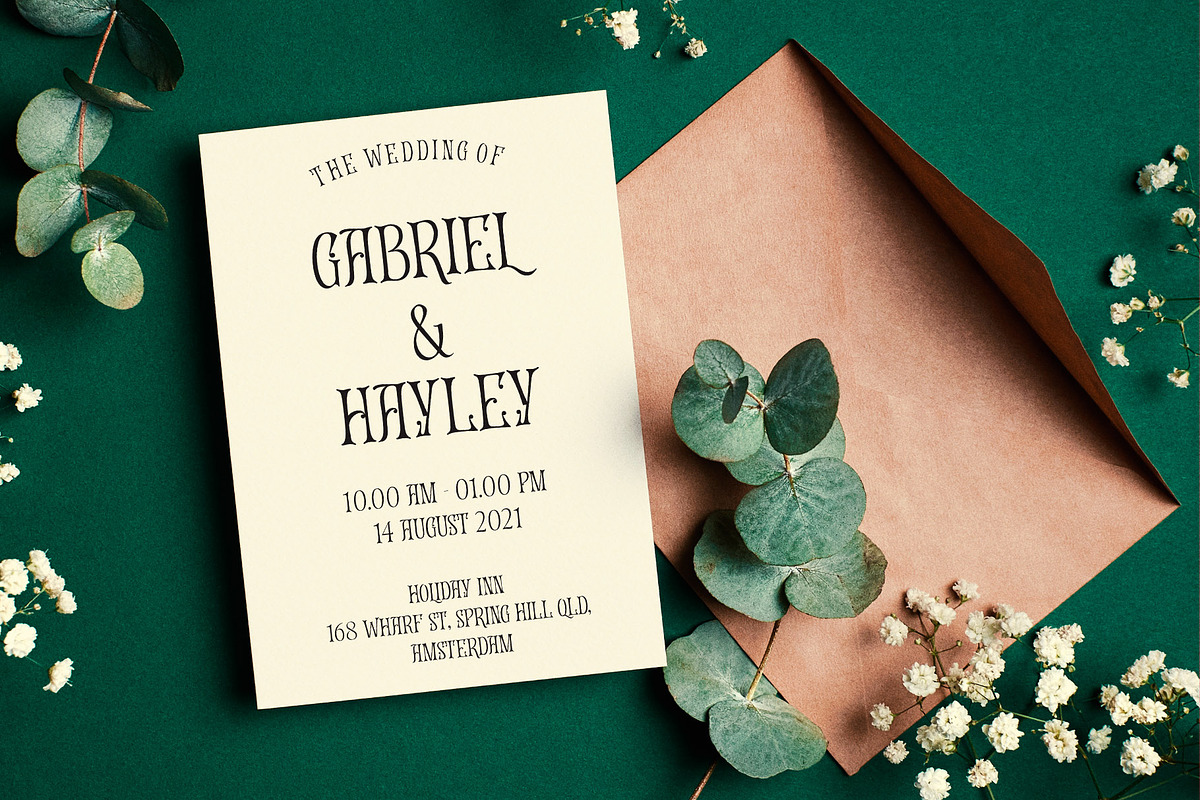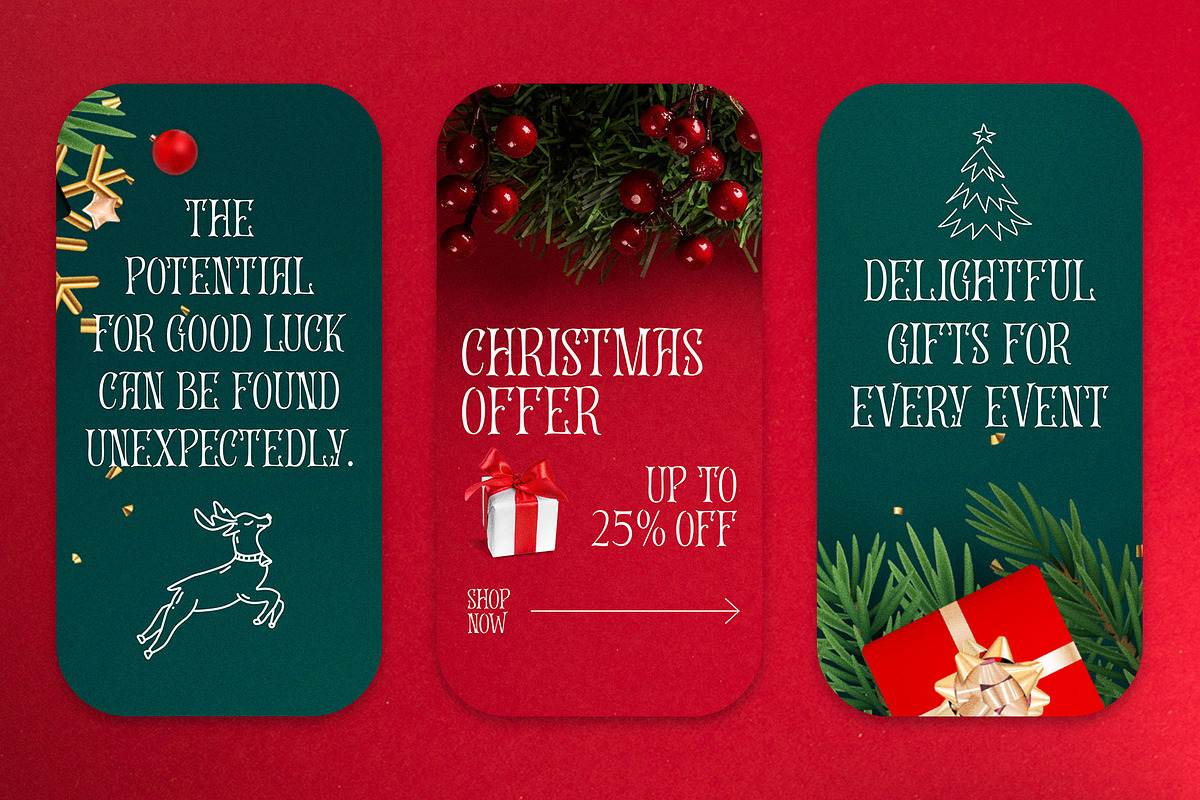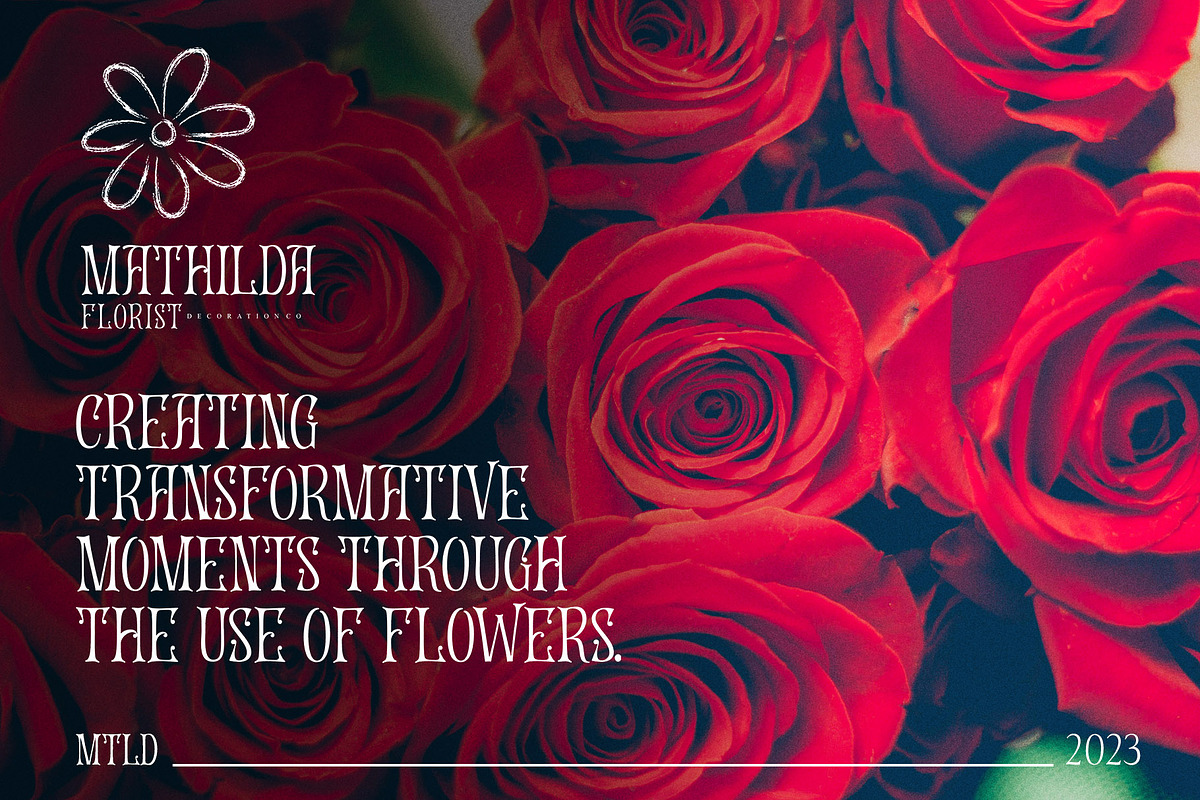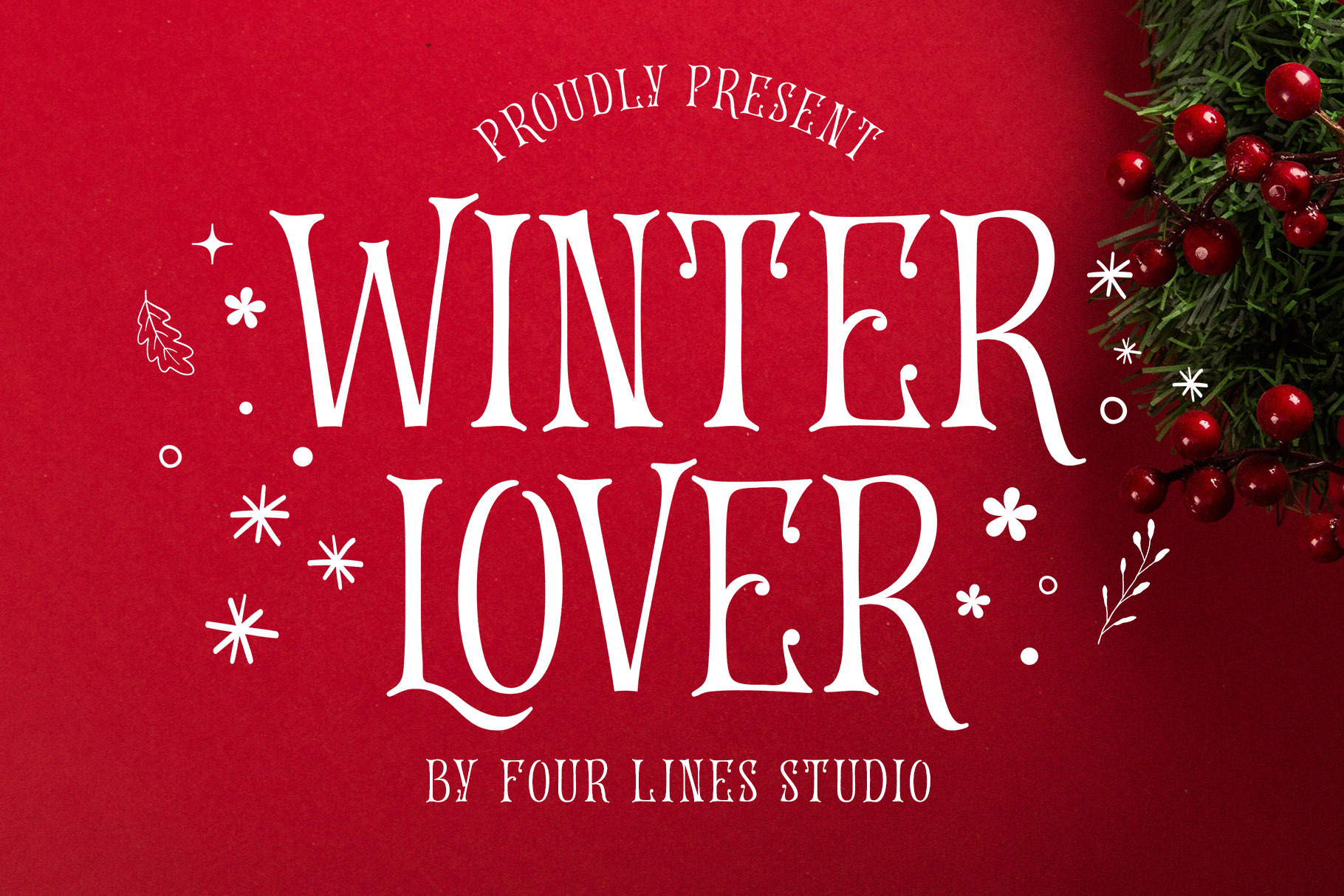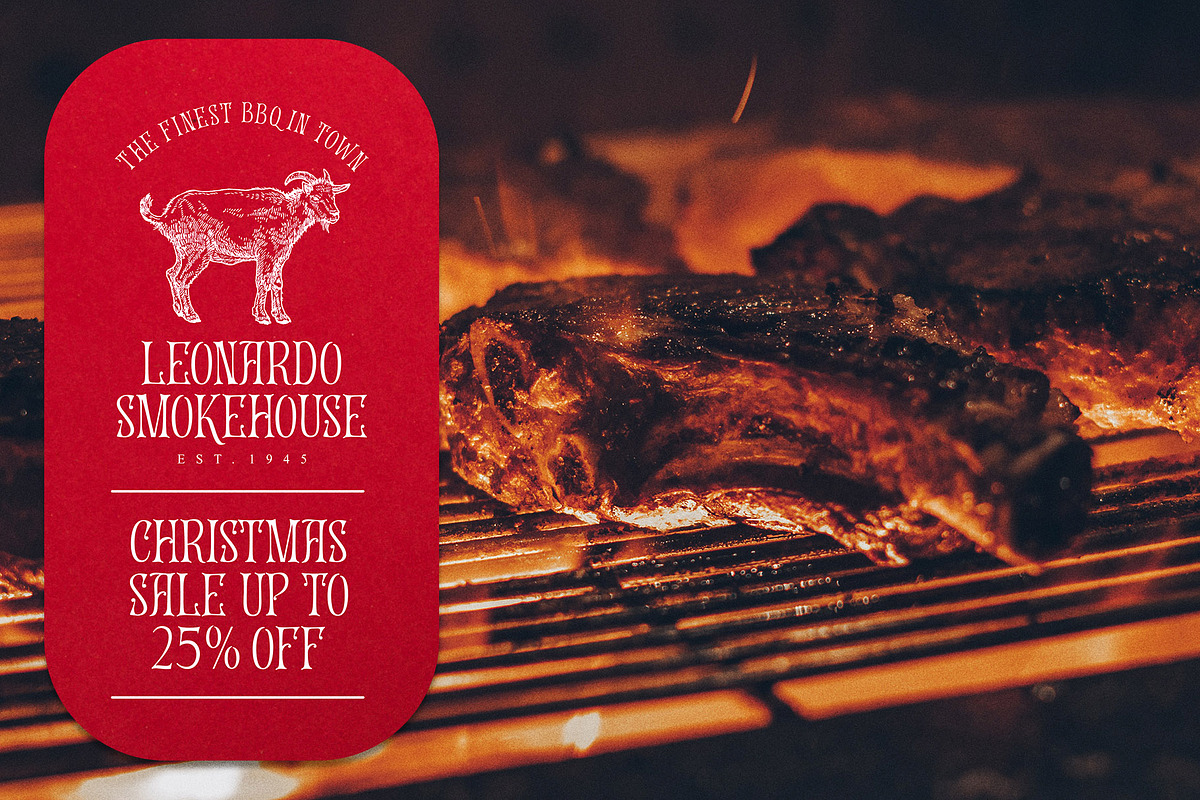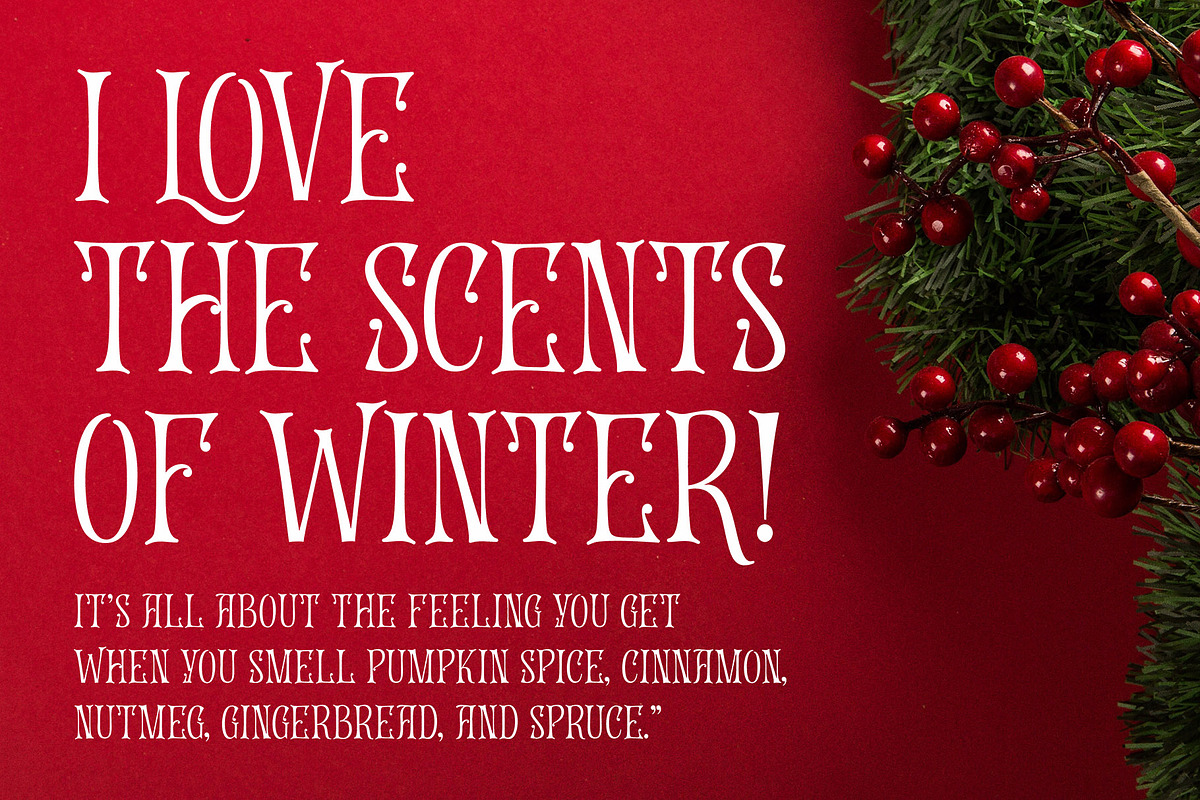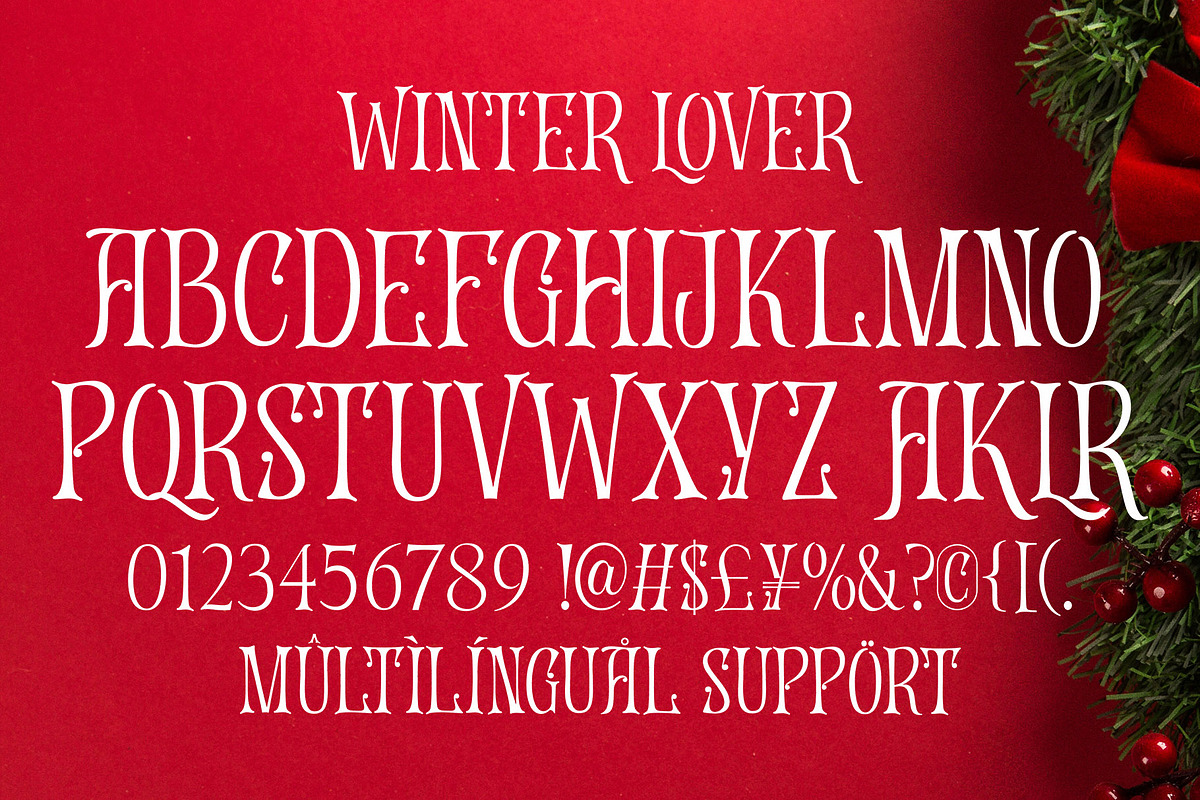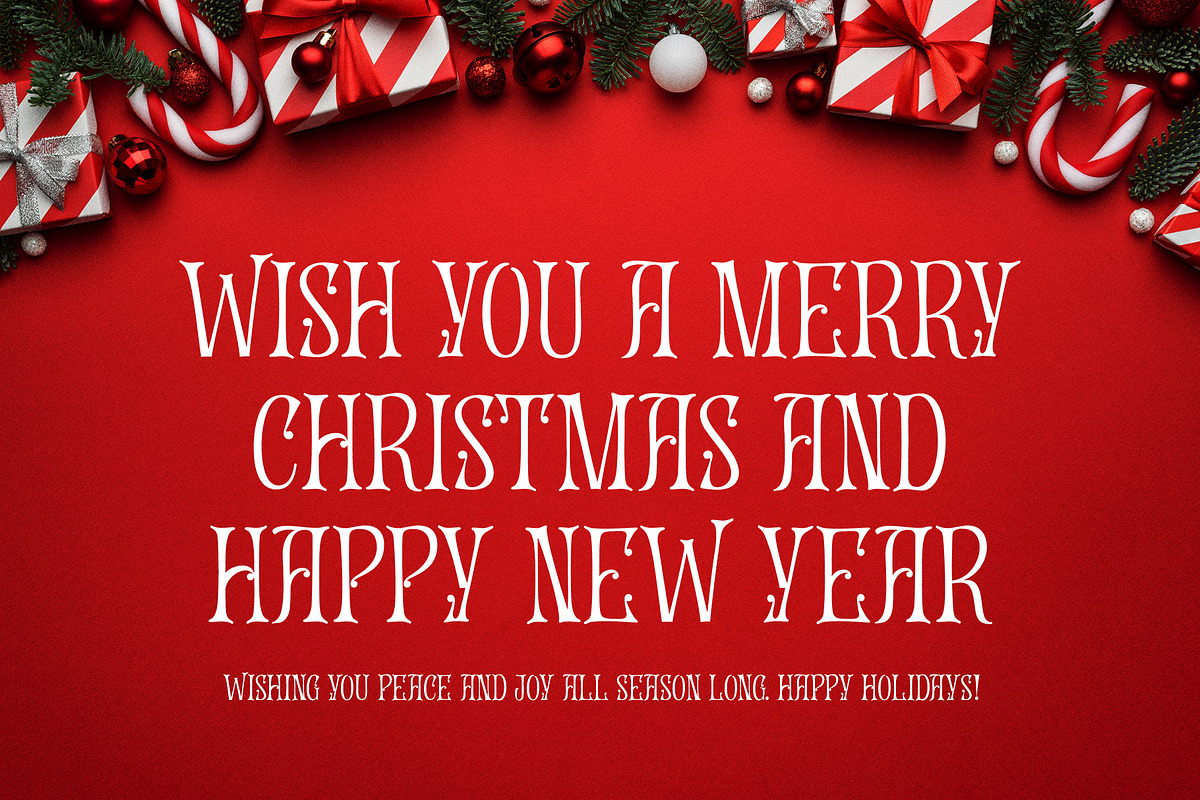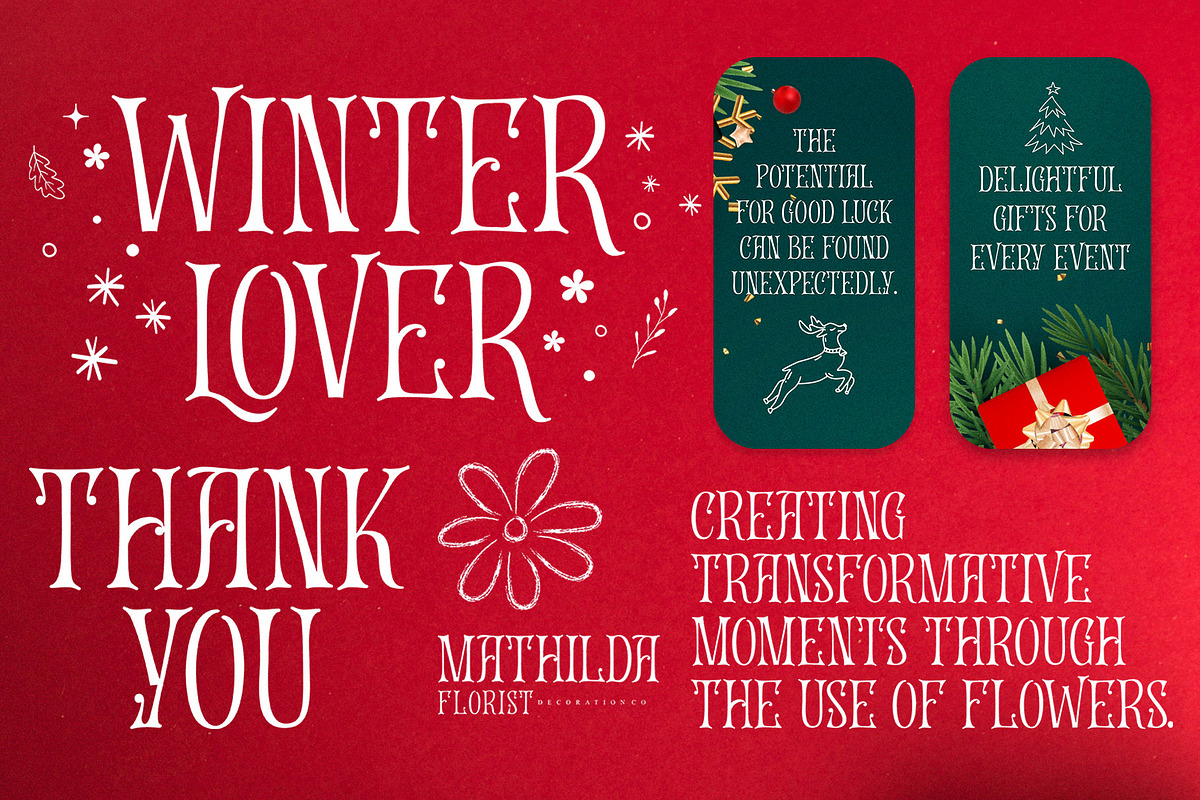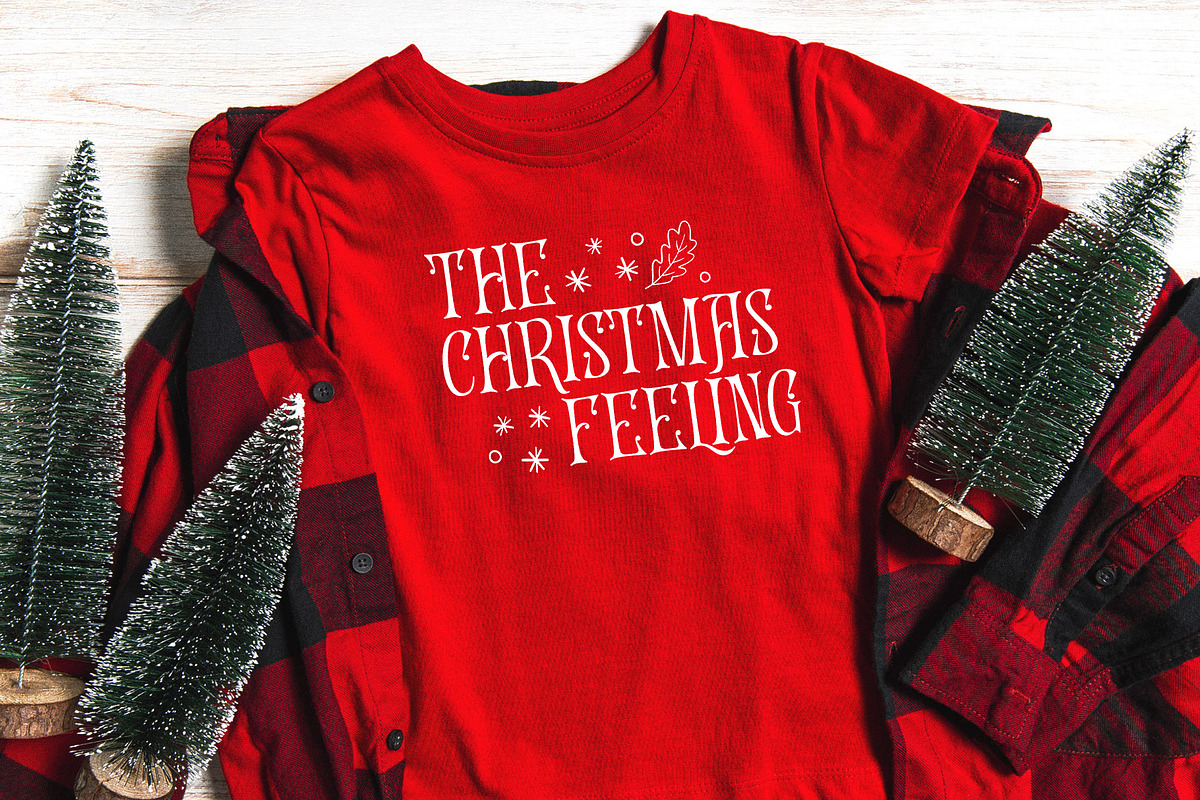
50% Winter Lover - Curly Serif Font
Introducing "Winter Lover" – a charming serif font designed to infuse your projects with a delightful blend of classic sophistication and festive cheer. With its timeless style and playful undertones, this typeface is the perfect choice for adding a touch of holiday warmth to your designs. Whether crafting seasonal greetings, invitations, or promotional materials, Winter Lover brings an air of celebration to any project. Elevate your creative endeavors with this versatile font that captures the essence of the Christmas season. Make every message merry and bright with Winter Lover, your go-to choice for a classic yet playful typographic experience.